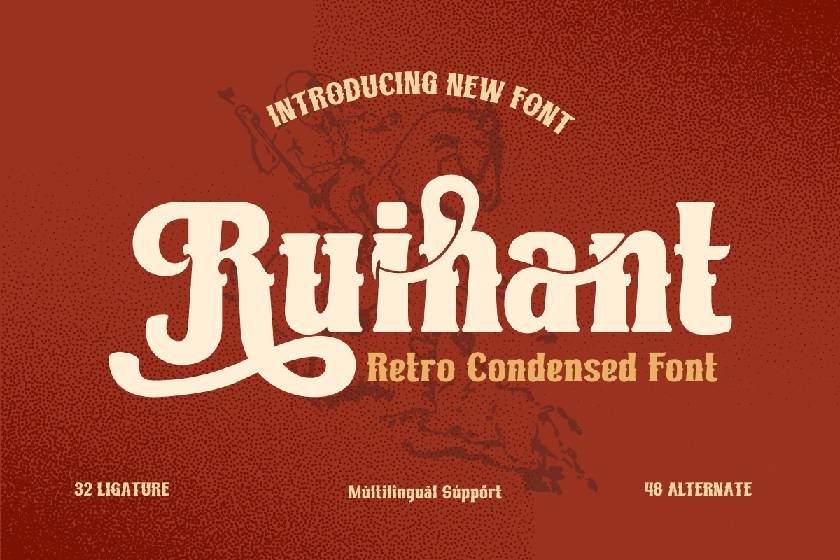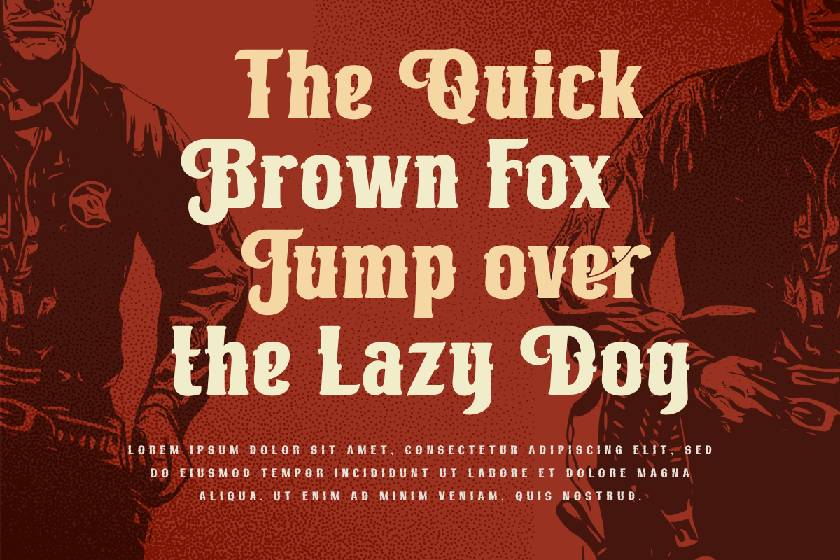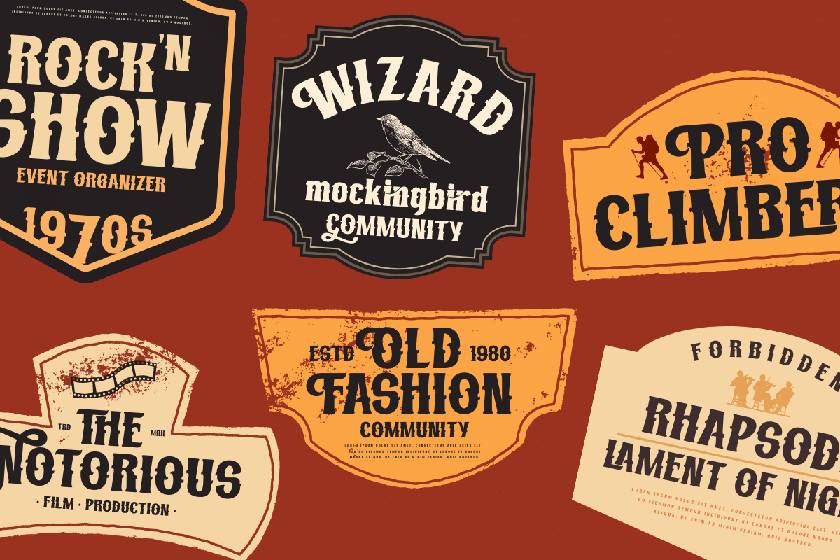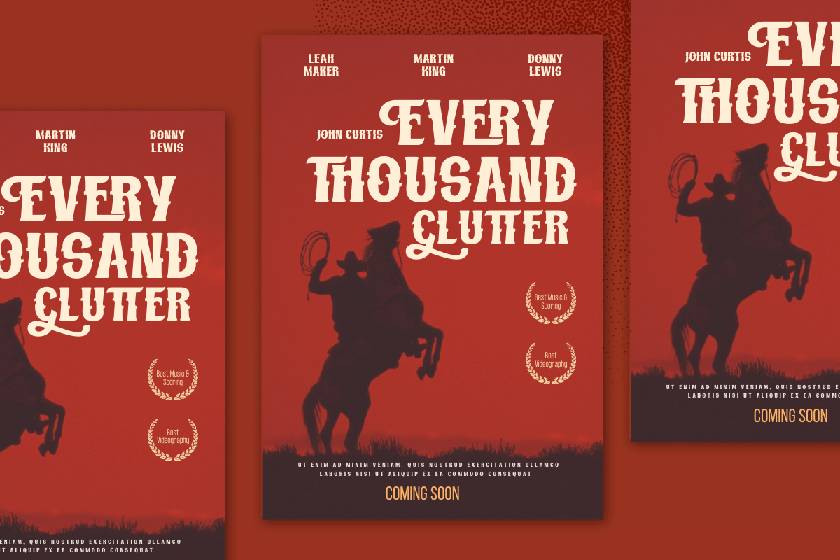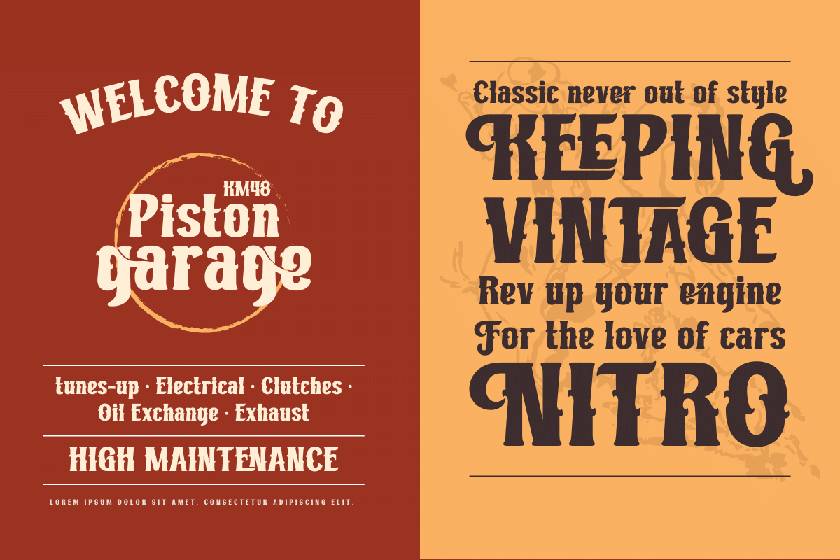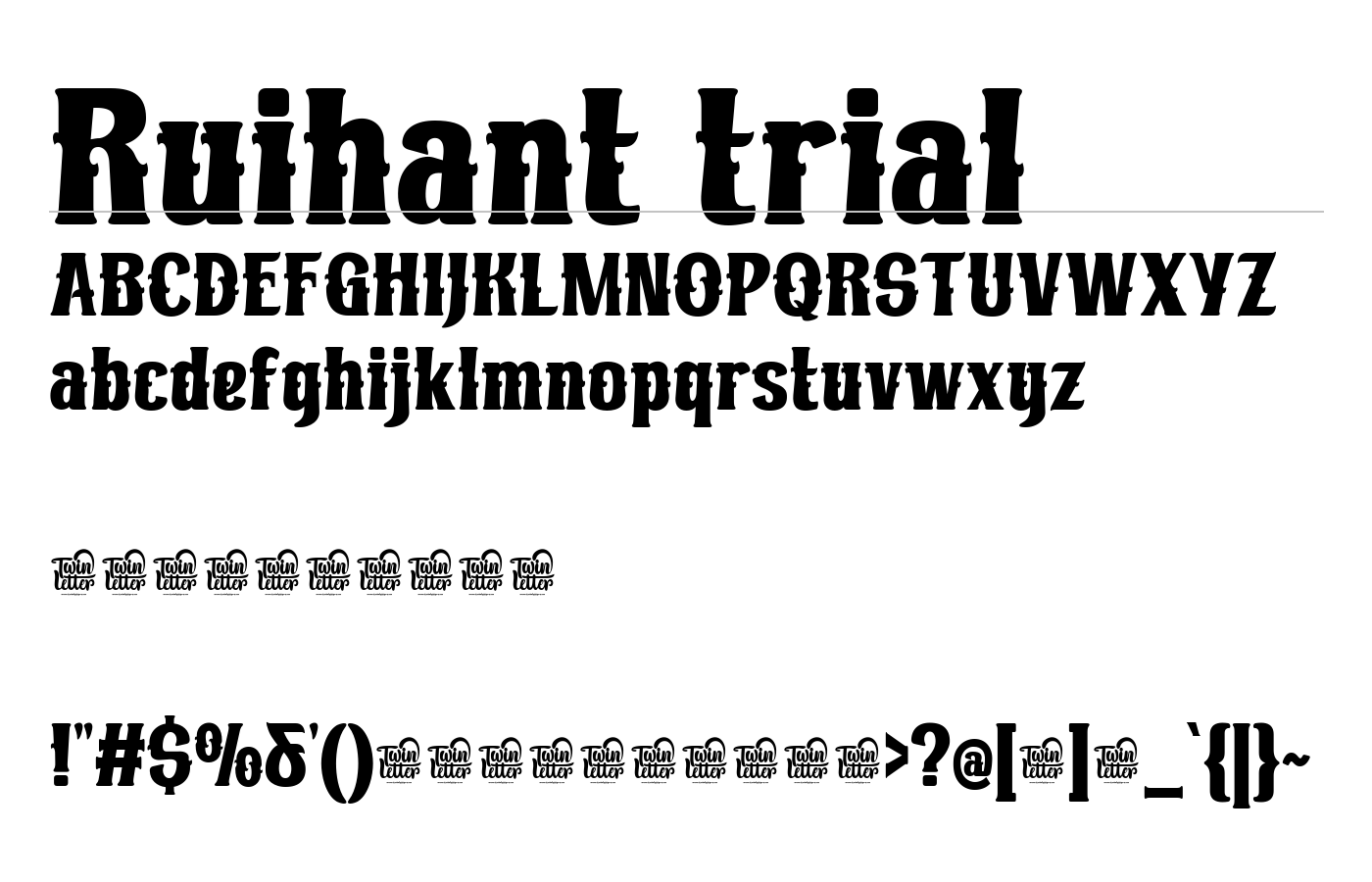
Ruihant is a bold slab serif font with a strong, vintage-inspired character. Its thick, blocky serifs and slightly condensed letterforms create a confident, sturdy appearance, while the medium contrast between strokes adds visual interest. This font works well for logos, headlines, and branding projects that want to convey a sense of tradition and boldness with a playful, slightly rustic edge.
Ruihant Font
About Ruihant Font